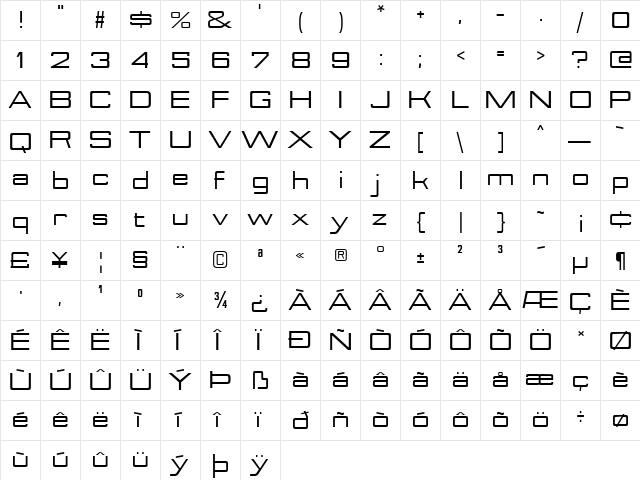
Nesobrite Expanded Bold
Expanded Bold · Ray Larabie Ray Larabie ·
Foundry Ray Larabie
Nesobrite Expanded Bold
FoundryRay Larabie
DesignerRay Larabie
Design Context for Nesobrite Typeface
Nesobrite takes a measured approach to typography — its balanced proportions and neutral character make it a reliable workhorse for both digital and print work. The heavy weight commands attention and anchors typographic hierarchies.